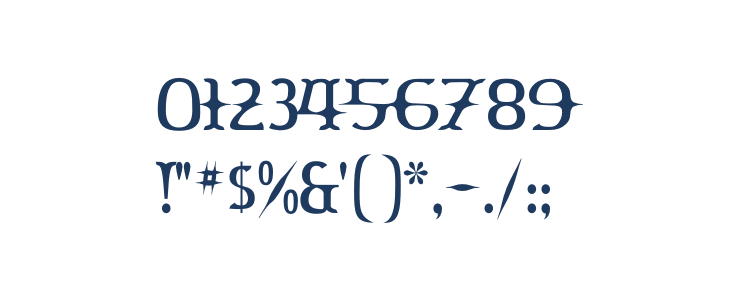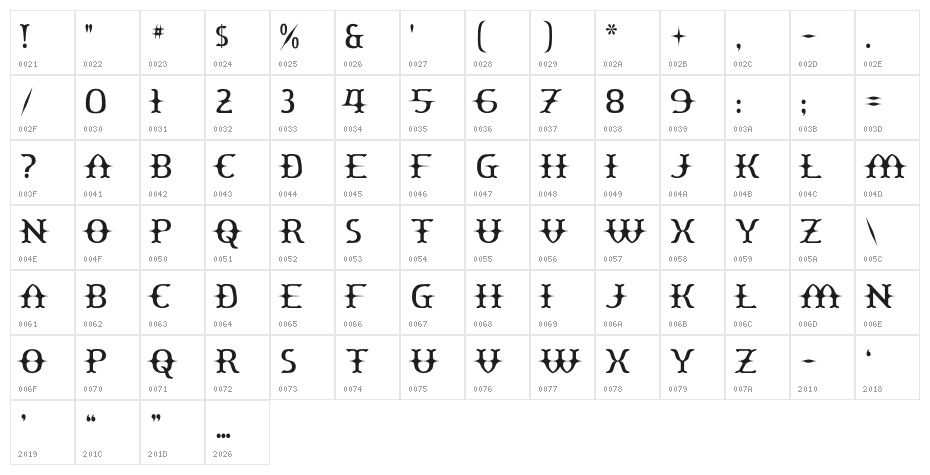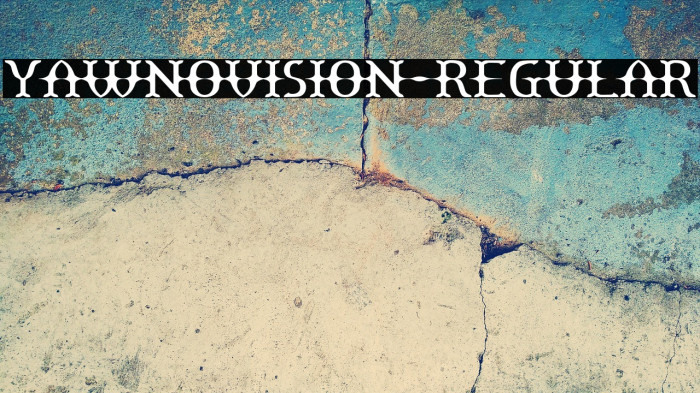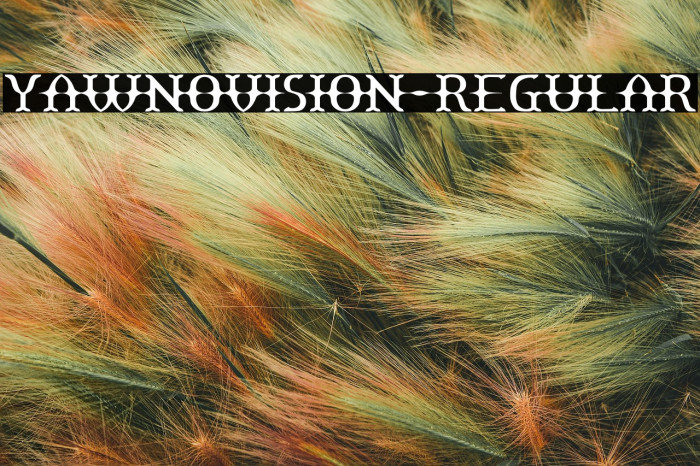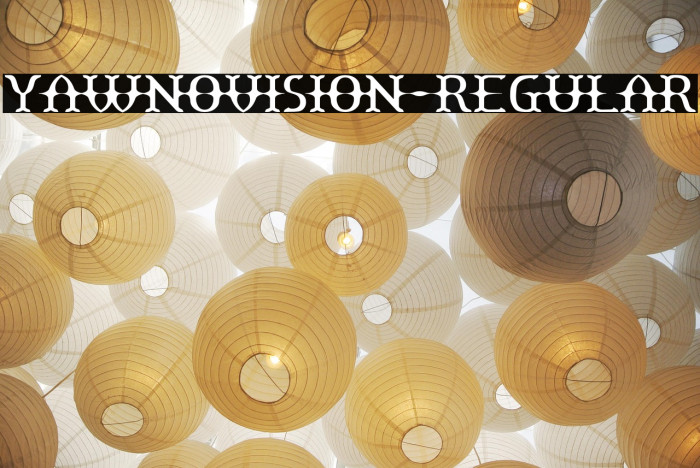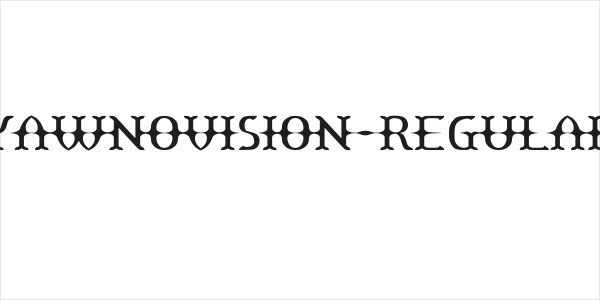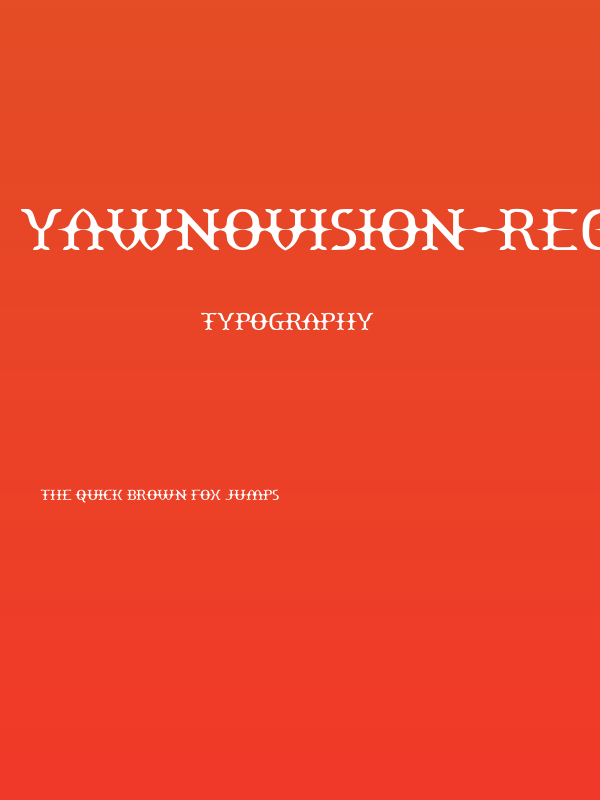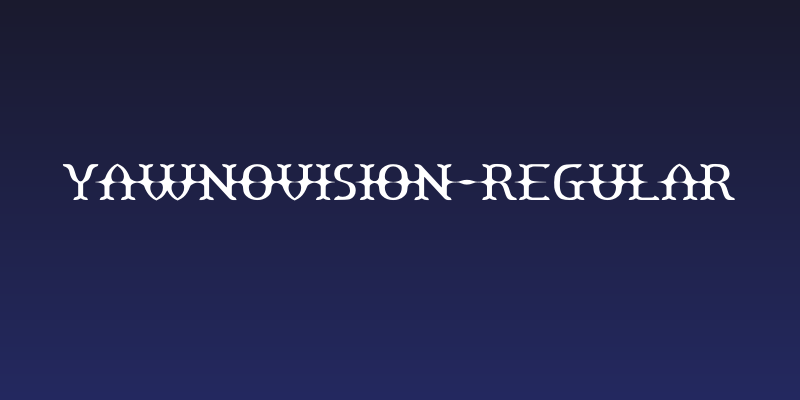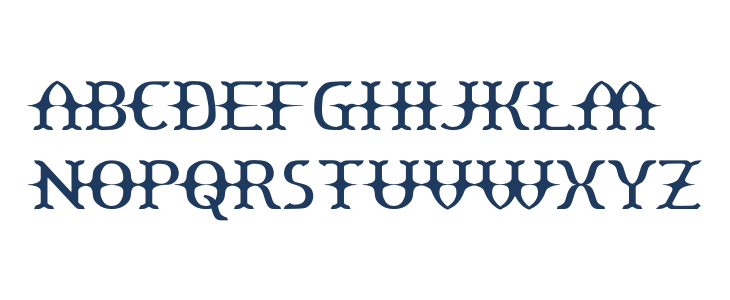
Yawnovision-Regular Font
Yawnovision-Regular Description
This font features a distinctive and bold style with sharp, angular serifs and a unique, almost gothic appearance. The characters are intricately designed with a high level of detail, giving them a dramatic and eye-catching look. The uppercase letters are particularly striking, with elongated vertical strokes and pointed serifs that create a sense of elegance and sophistication. The numbers and special characters maintain this ornate style, ensuring consistency throughout the font. This font's design is both decorative and functional, making it suitable for a variety of creative applications.